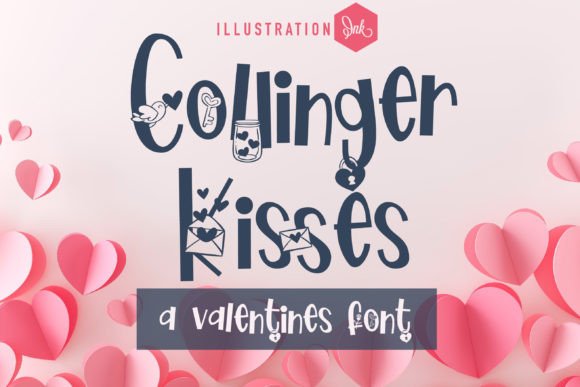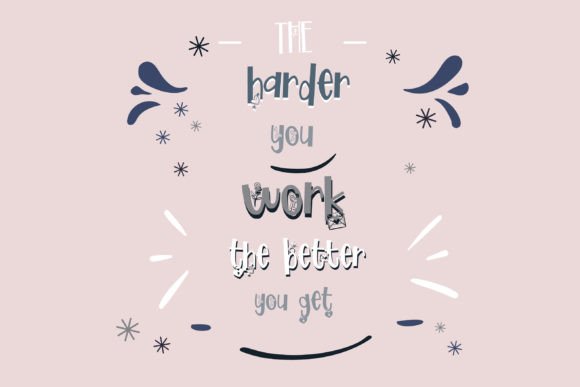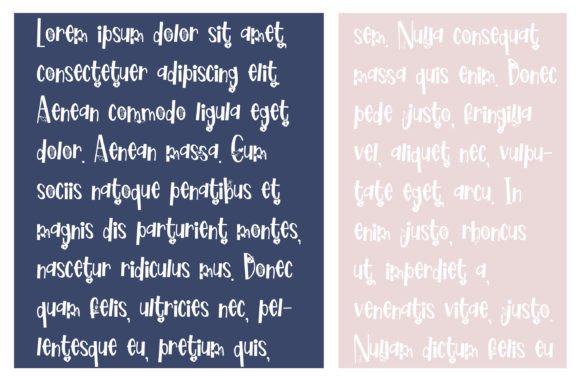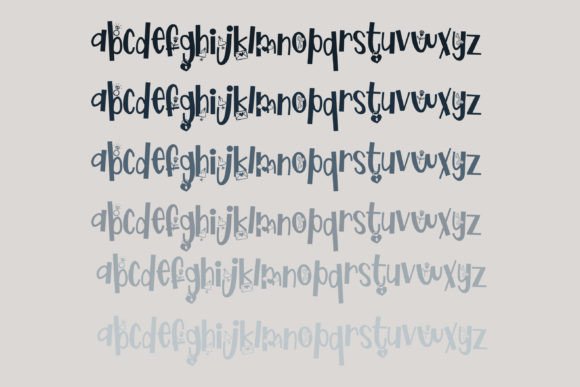
Collinger Kisses Font
About the Collinger Kisses Font
Crafted with precision, the Collinger Kisses Font is ready to bring your ideas to life. This hand-crafted font is a whimsy sans serif with valentine imagery throughout. No matter the topic, this font will be an incredible asset to your fonts’ library, as it has the potential to elevate any creation.
Collinger Kisses is best suited for headlines, short text blocks, and branding applications where a playful yet sophisticated aesthetic is desired. Its unique character shines in projects related to romance, celebrations, or brands targeting a young, fun-loving audience. Avoid using it for large amounts of body copy or UI elements; its decorative nature reduces readability in extended text.
Pairing Collinger Kisses with a clean sans-serif like Lato for body text creates a balanced contrast. For a more elegant feel, consider pairing it with a delicate serif font such as Playfair Display. Geometric sans-serifs offer a modern juxtaposition; however, ensure sufficient contrast for optimal readability.
The font’s personality is undeniably cheerful and romantic, yet maintains a level of sophistication. It’s ideal for projects requiring a touch of whimsy without sacrificing professionalism. Its inherent charm makes it a strong choice for branding projects targeting a female demographic or products associated with love and special occasions.
Collinger Kisses Font Usage Examples
Collinger Kisses Font Example